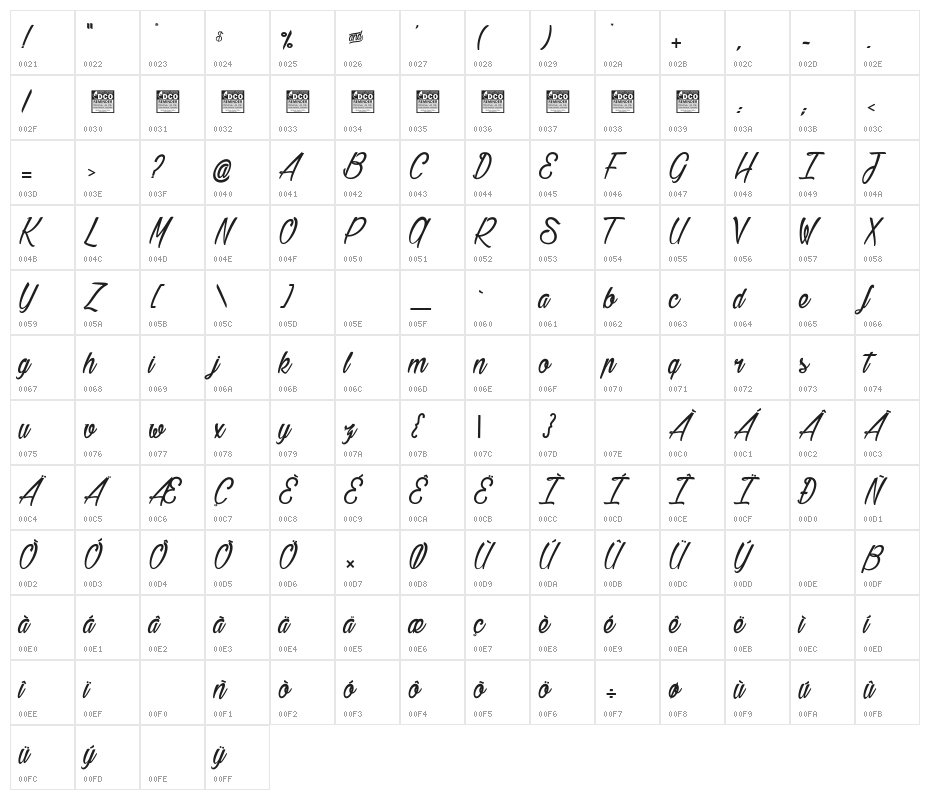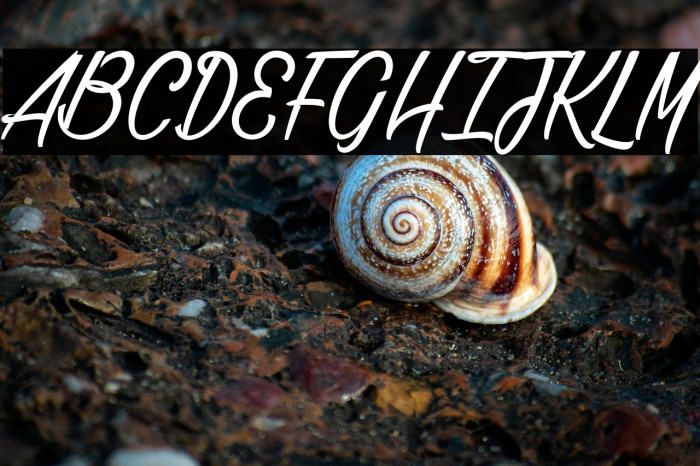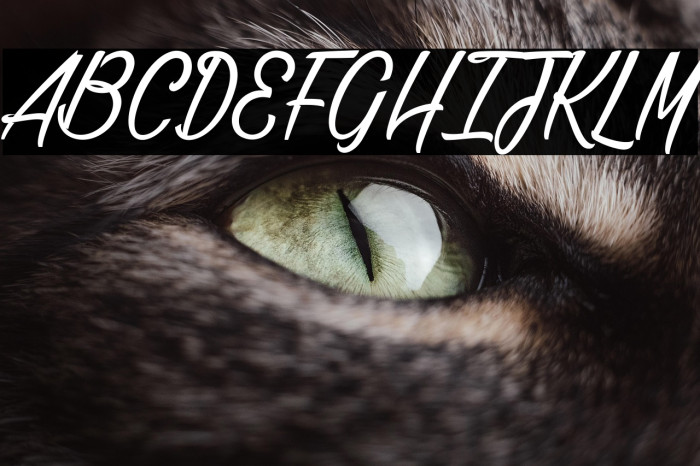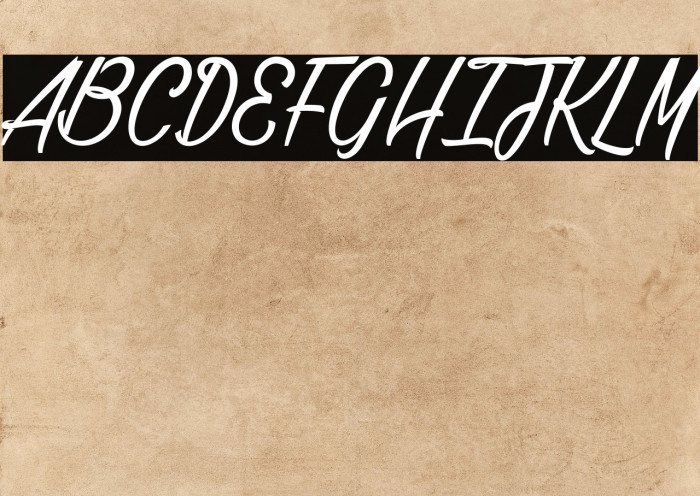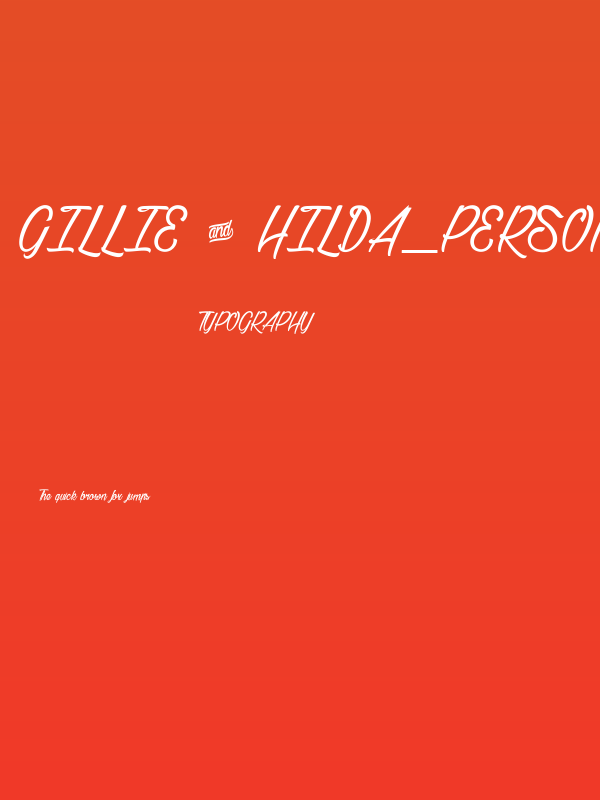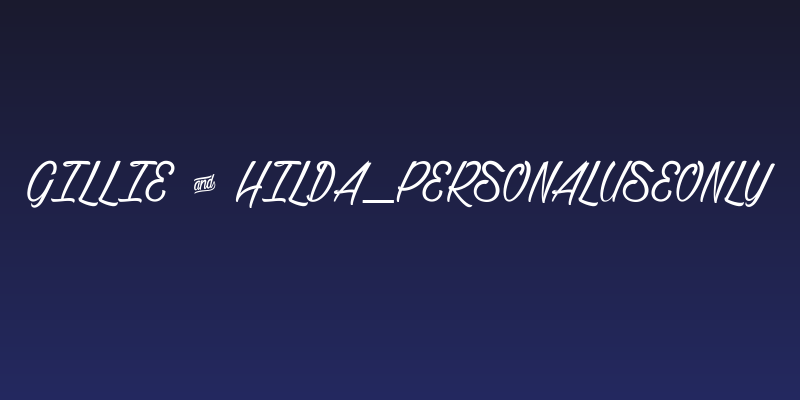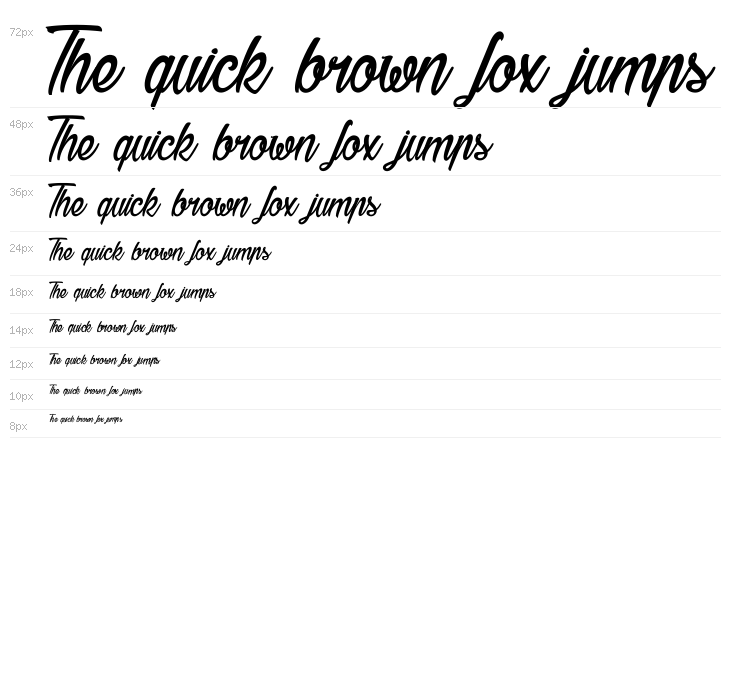
Gillie & Hilda_PersonalUseOnly Font
Gillie & Hilda_PersonalUseOnly Description
This font features a dynamic and flowing script style, characterized by its elegant and slightly slanted letterforms. The uppercase letters are bold and expressive, with sweeping curves and a sense of movement, while the lowercase letters maintain a consistent rhythm and fluidity. The font includes a full set of numerals and a variety of special characters, each designed to complement the overall aesthetic. The strokes are moderately thick, providing a balanced contrast that enhances readability while maintaining a decorative flair. This font is ideal for projects that require a touch of sophistication and personality.